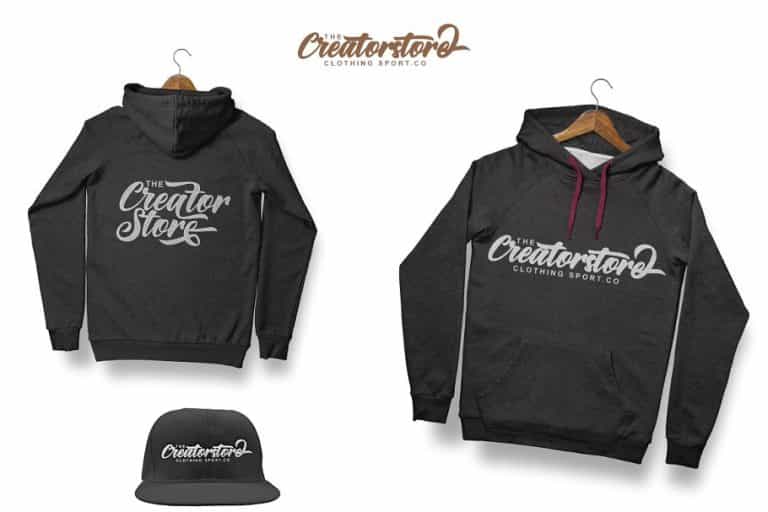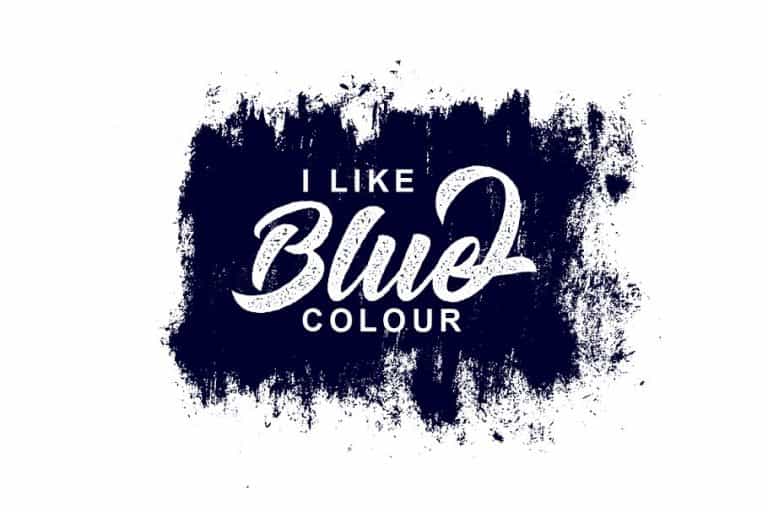
Introducing Big Blue Font. Big Blue Bold Script Font is a hand brushed typeface, which has an authentic Clean and Rough imperfections with a very bouncy baseline It also has a perfectly paired complimentary marker font , and comes with extra Swash that are so useful. Perfect for logos, handwritten quotes, product packaging, headers of websites and posters.